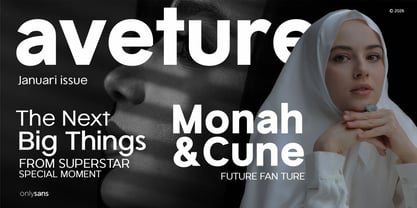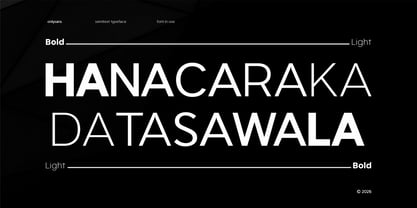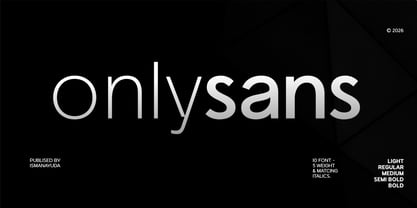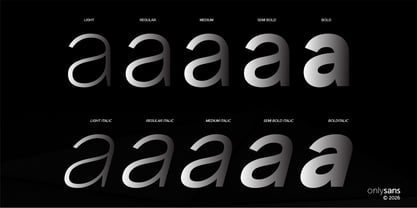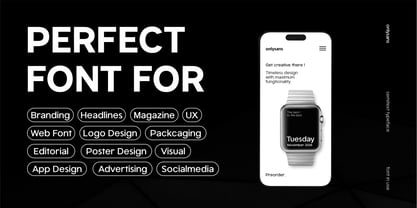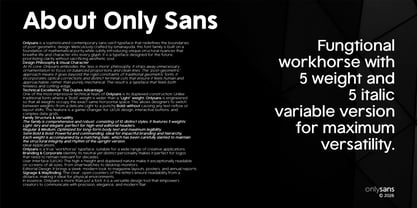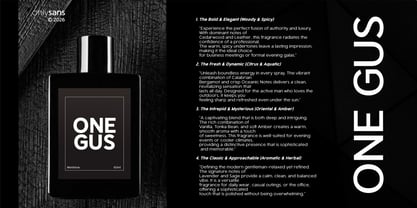
Onlysans
OnlySans is a clean, contemporary sans-serif typeface designed with a geometric foundation and minimalist aesthetic. The letterforms feature wide, circular proportions, generous counter spaces, and clean, uniform line weights that optimize legibility at both large display sizes and small body text. Distinctive design details, such as the low-reaching descender on the lowercase "y" and the sharp, geometric terminals, add a modern, corporate, yet approachable character to the family.
The complete typeface package includes 10 total fonts, composed of 5 distinct weights—Light, Regular, Medium, Semi Bold, and Bold—alongside matching italic variants for each weight. Published by Ismanayuda, this versatile font family is highly suited for editorial layouts, corporate branding, digital user interfaces, modern web design, packaging, and high-impact advertising campaigns.
- Bold
- Semi Bold
- Medium
- Regular
- Thint
- Bold Italic
- Semi Bold Italic
- Medium Italic
- Regular Italic
- Thint Italic
- Uppercase
- Lowercase
- Numeral
- Fungtional
- Symbol
- Multilingual